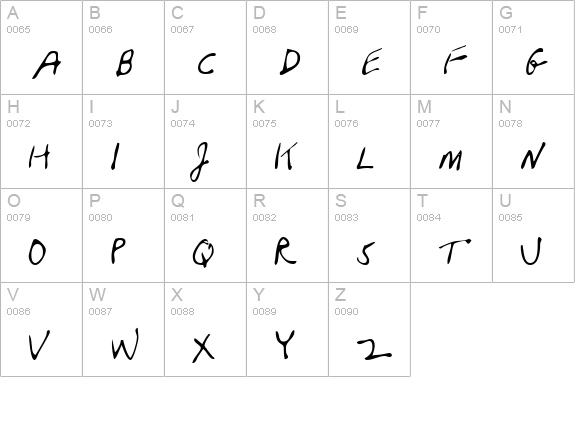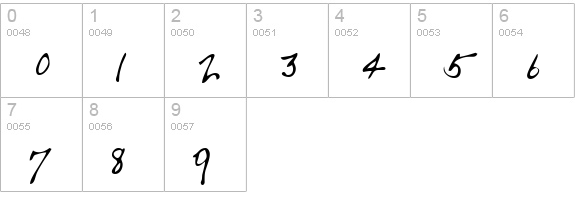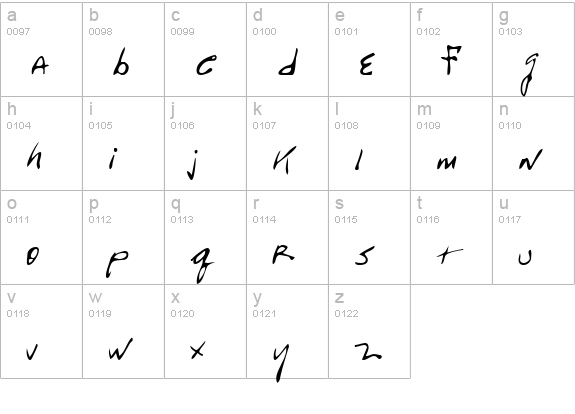
FrasiersHand Regular is the standard, neutral variant in the FrasiersHand typeface family \xE2\x80\x94 well suited to general body text, paragraphs, and standard typographic work.
FrasiersHand Regular font is a charming and elegant typeface that exudes warmth and sophistication. With its hand-drawn style and fluid strokes, this font is perfect for adding a personal touch to your design projects. Whether you're creating invitations, greeting cards, or branding materials, FrasiersHand Regular will bring a unique and artistic flair to your work. And the best part? FrasiersHand Regular font is available for free download at FontsMarket.com. This means you can easily access this beautiful font and use it in your creations without any cost. So why wait? Download FrasiersHand Regular today and elevate your designs with its timeless appeal.